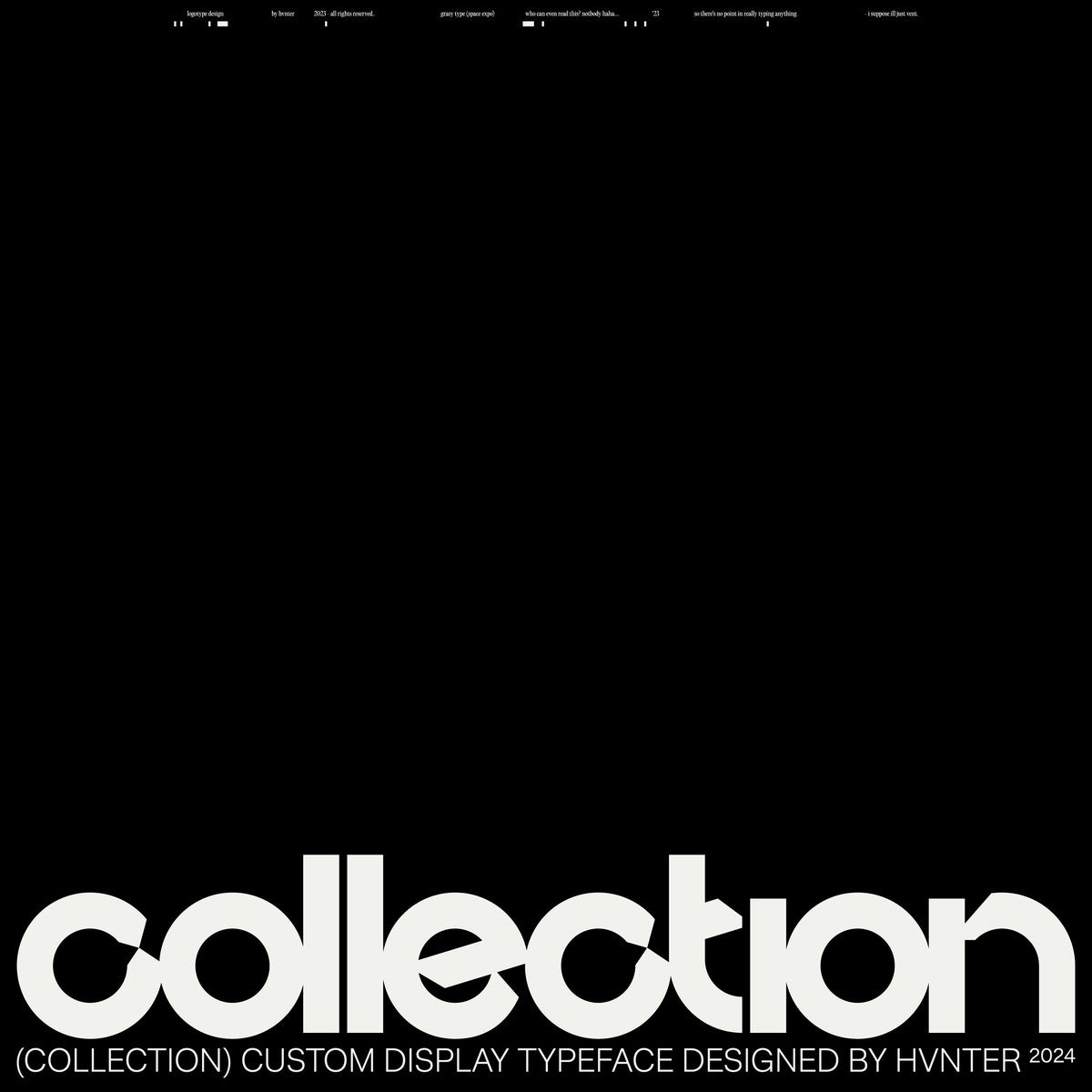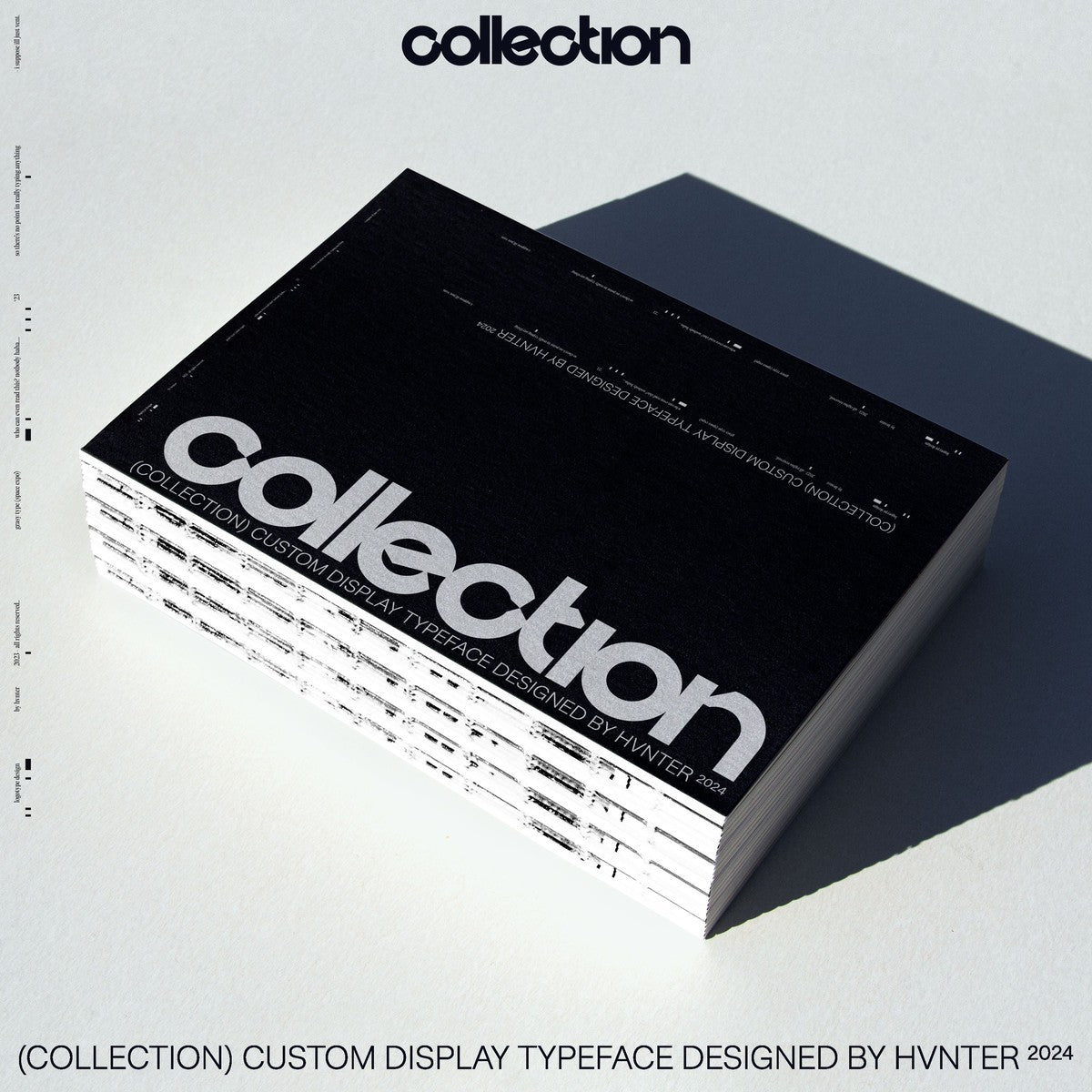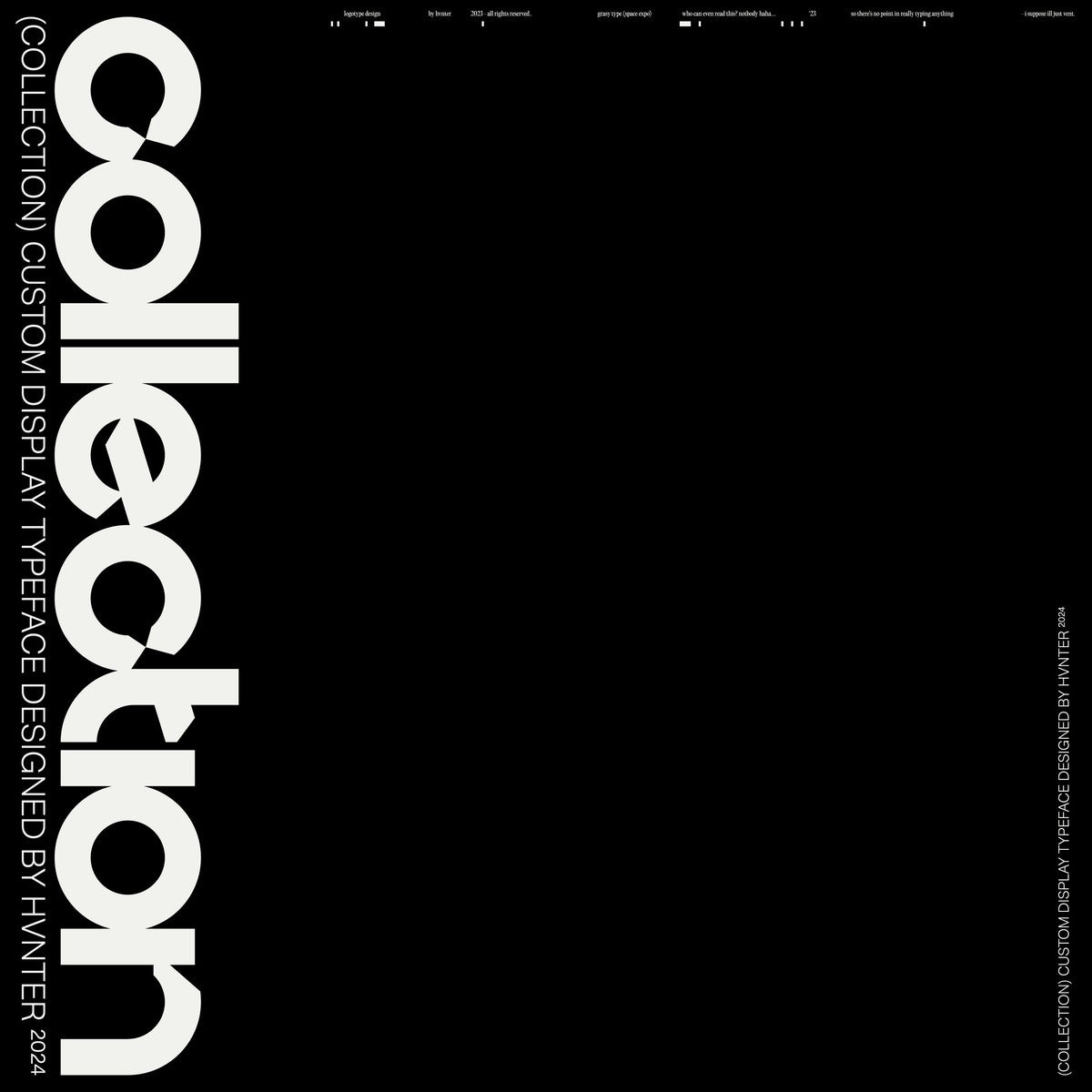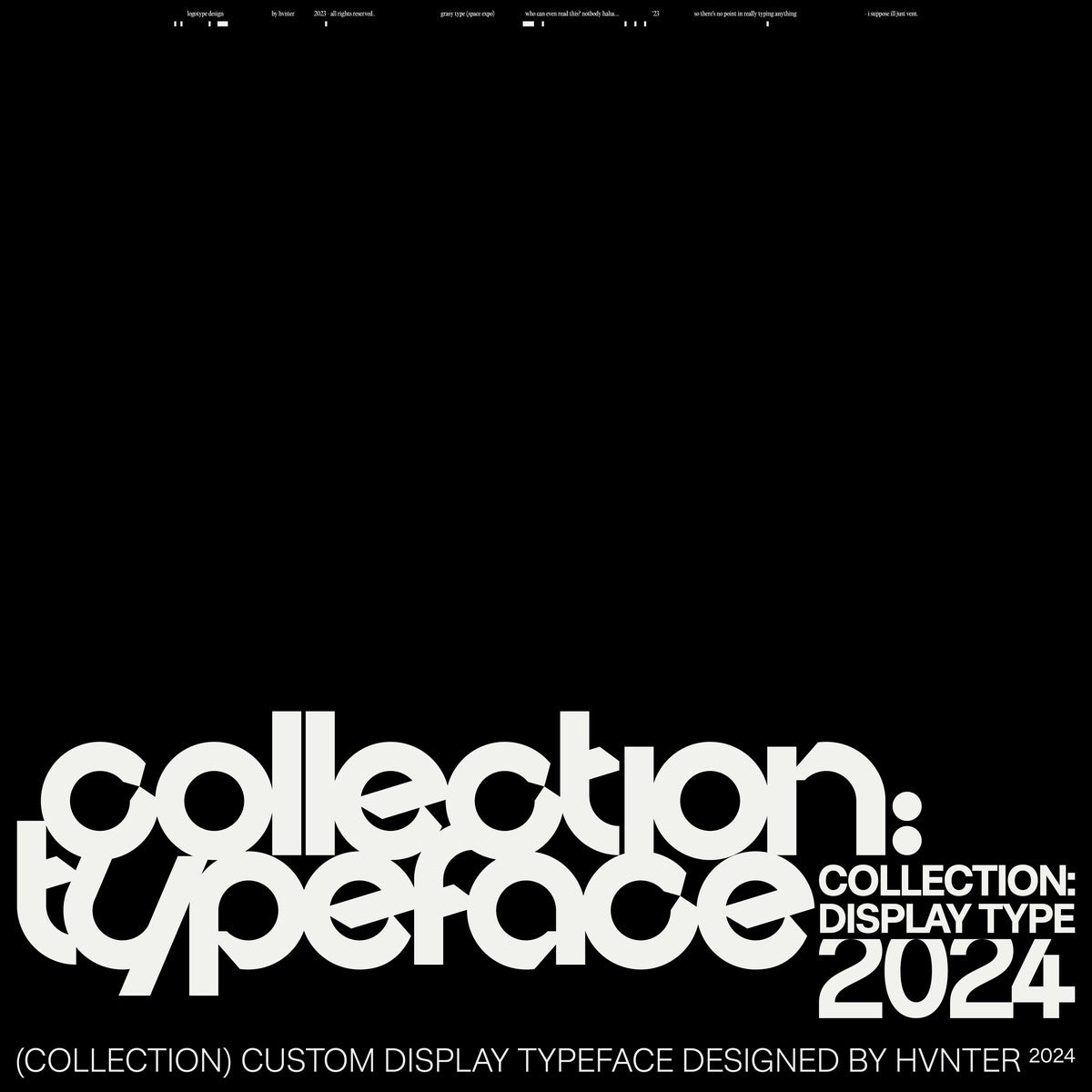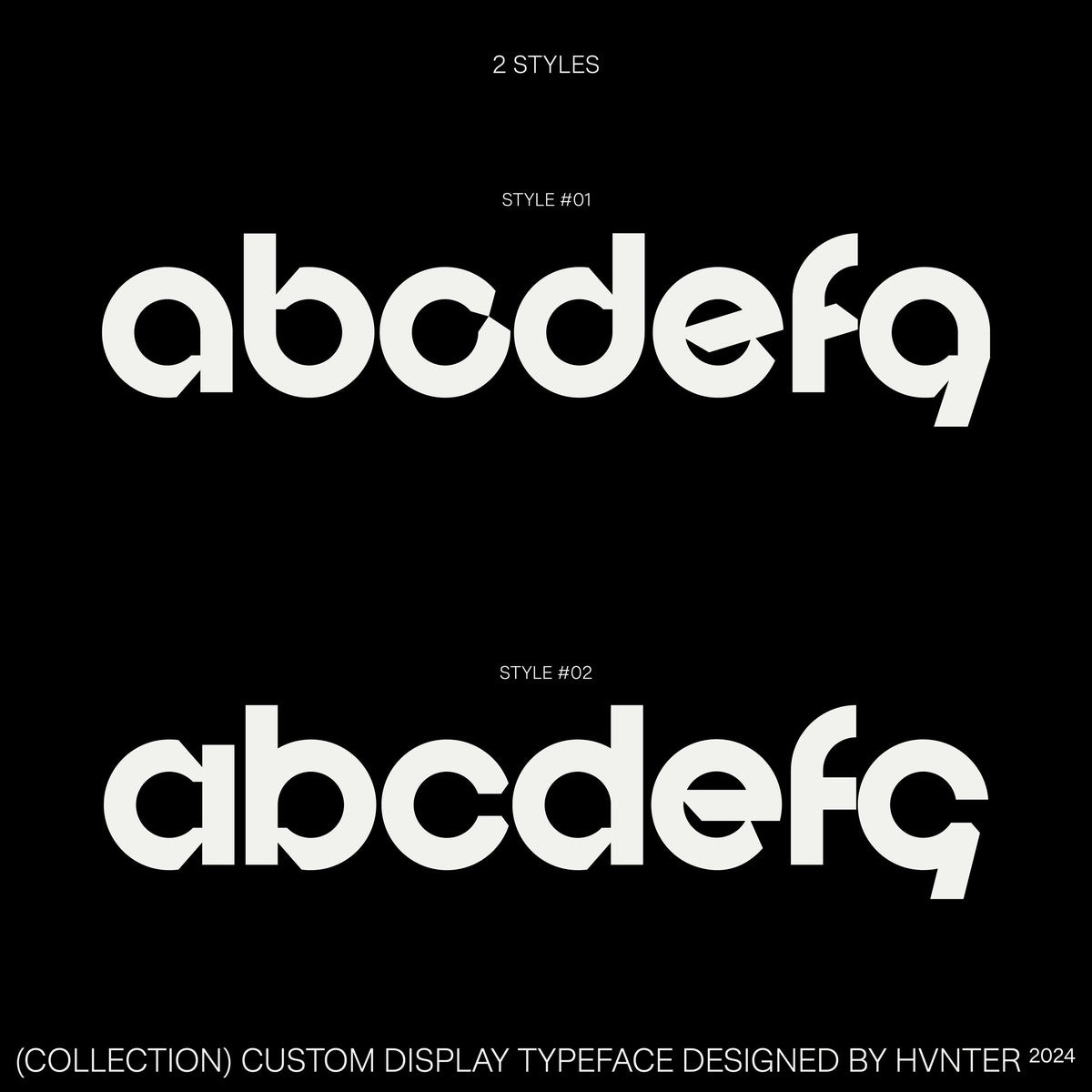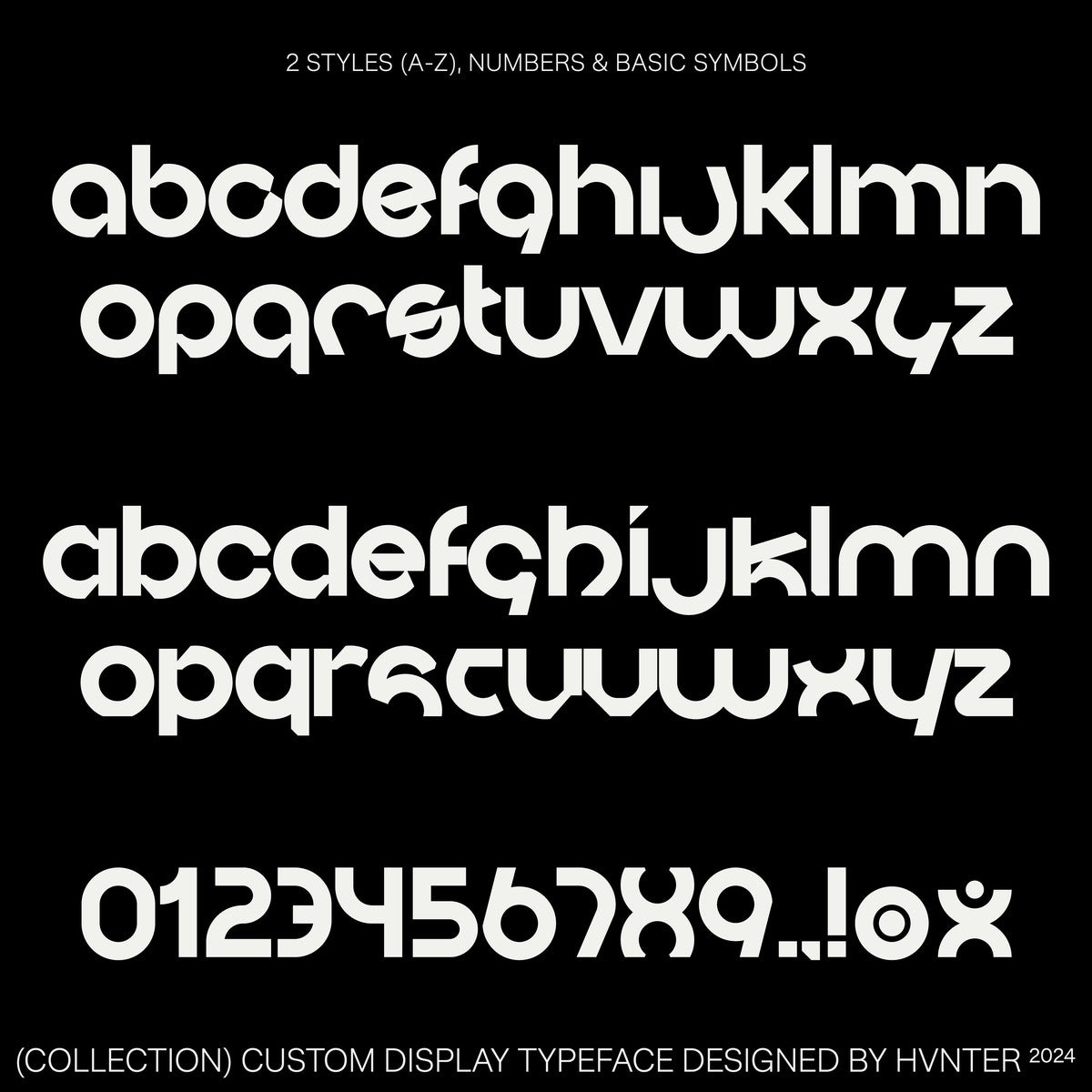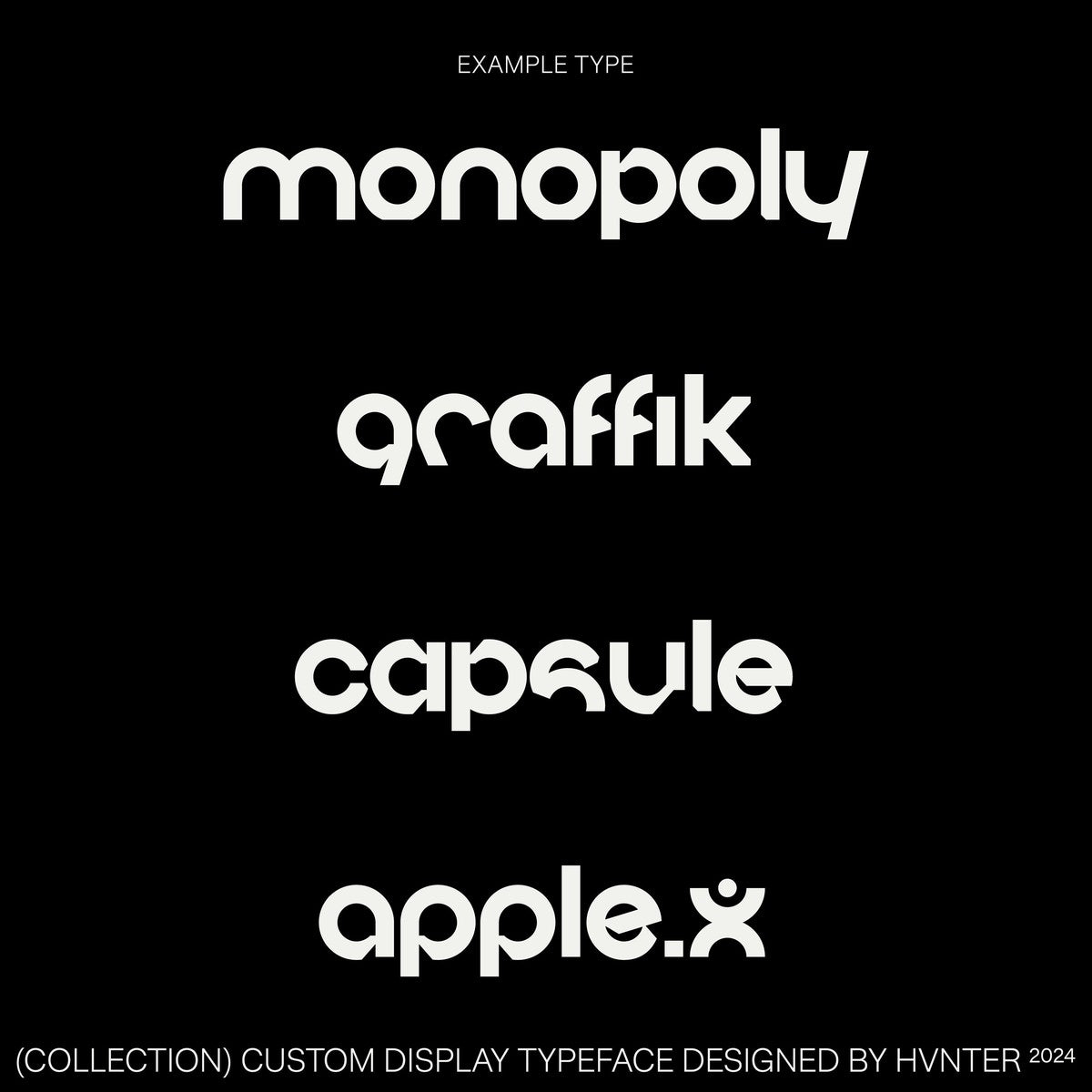
Police de caractères de collection
The Collection Typeface is a display font package that includes two styles, covering A-Z, 0-9, and basic symbols. It's a clean, sans serif typeface that fits into the categories of display fonts, Y2K fonts, and cool fonts. Compatibility is not specified.
Ideal for modern graphic design and branding projects. Perfect for posters, album covers, and social media graphics, ensuring a clean and impactful visual presence.